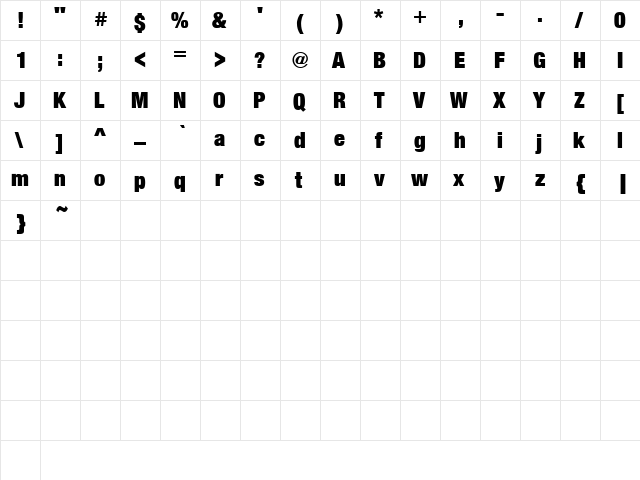
Loving 26 Regular Font Preview
Loving 26 Regular
Design Context for Loving 26 Typeface
Loving 26 offers clean, dependable letterforms without strong stylistic allegiance, making it a practical choice for designers who need flexibility.